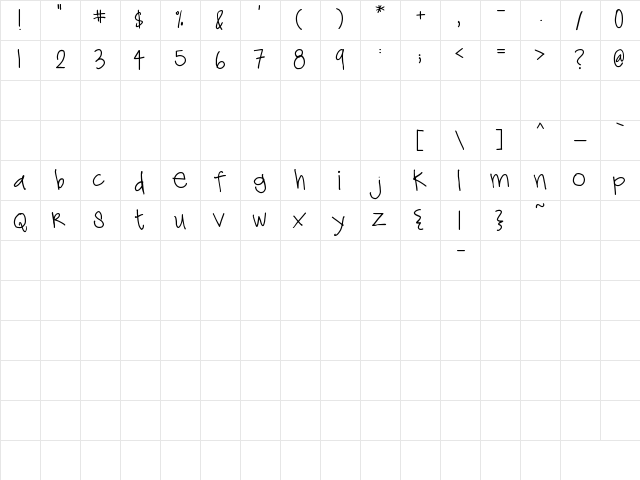
2peas unknown Regular
| Foundry | Two Peas in a Bucket |
| Designer | Amy Grendell |
Design Context for 2peas unknown Typeface
2peas unknown offers clean, dependable letterforms without strong stylistic allegiance, making it a practical choice for designers who need flexibility.